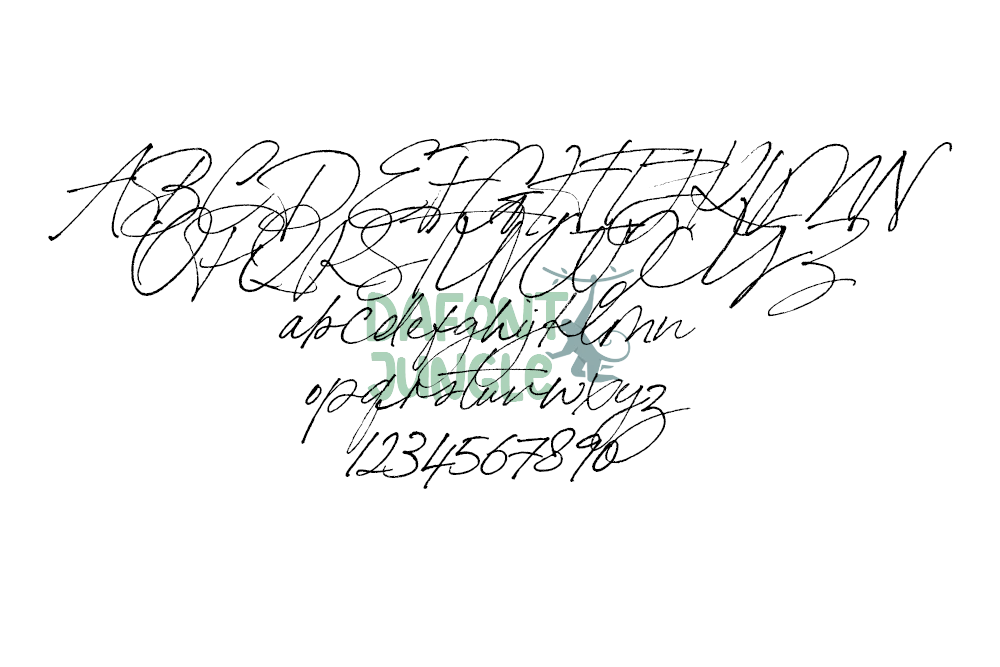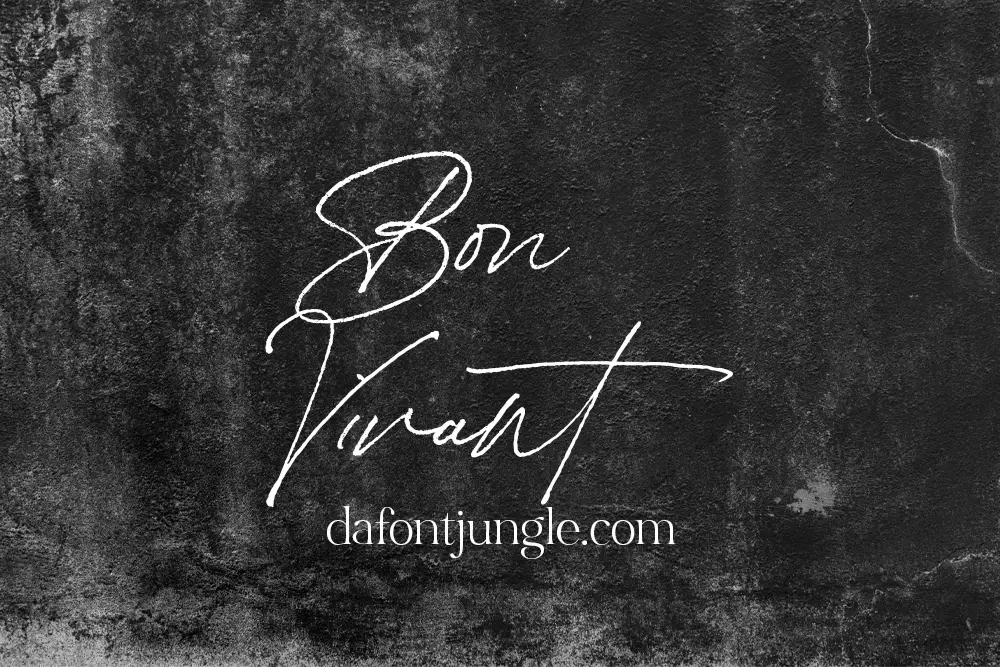
Bon Vivant – Luxury Script & Serif Font Collection
Bon Vivant is an elegant script and serif font collection crafted for designers who appreciate sophistication and style. The pack includes both a hand-drawn script font and a modern serif in two weights, making it ideal for upscale branding, editorial work, invitations, and creative displays. This collection also comes with a bonus set of Procreate brushes, background papers, and abstract design elements—perfect for adding a rich, luxurious feel to your projects.